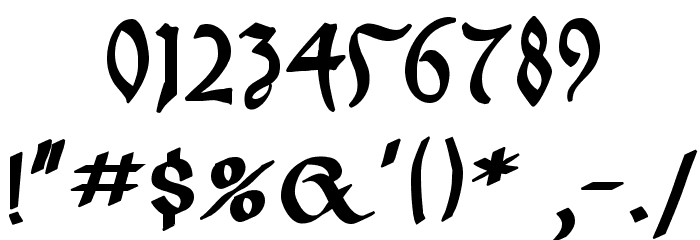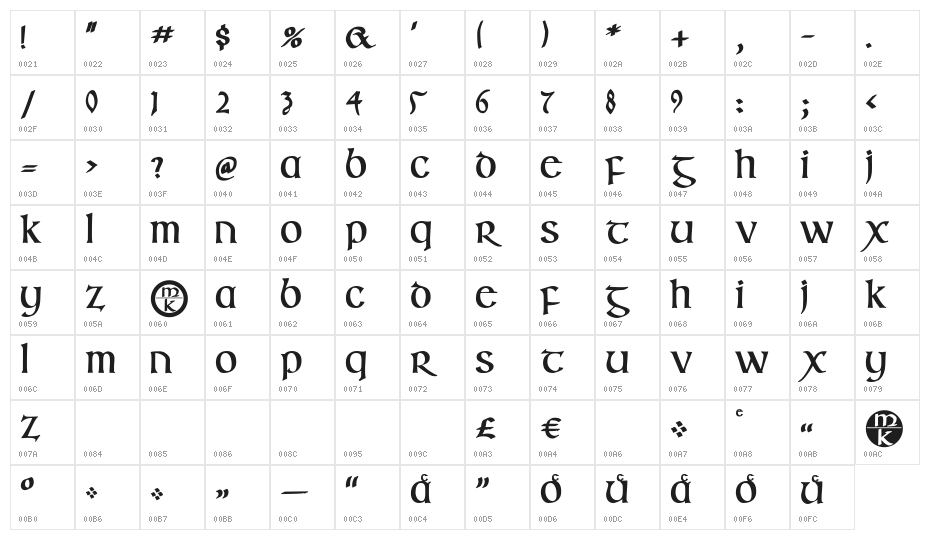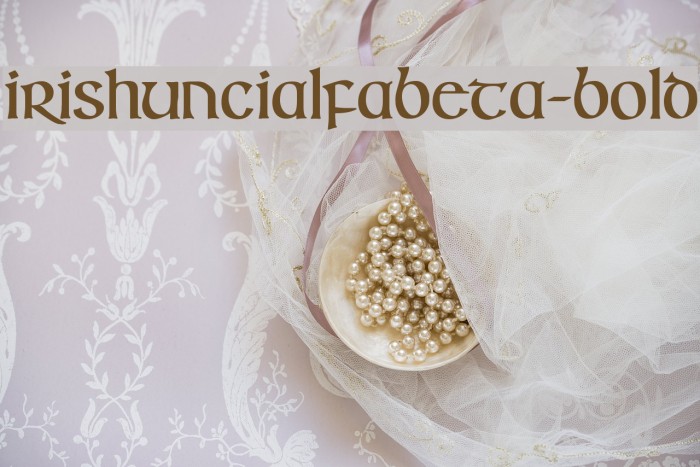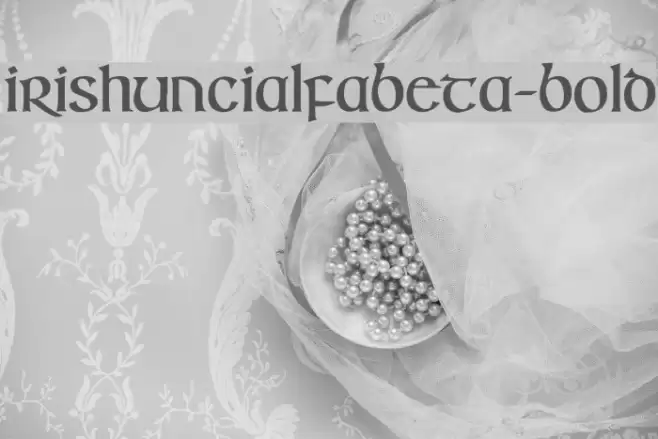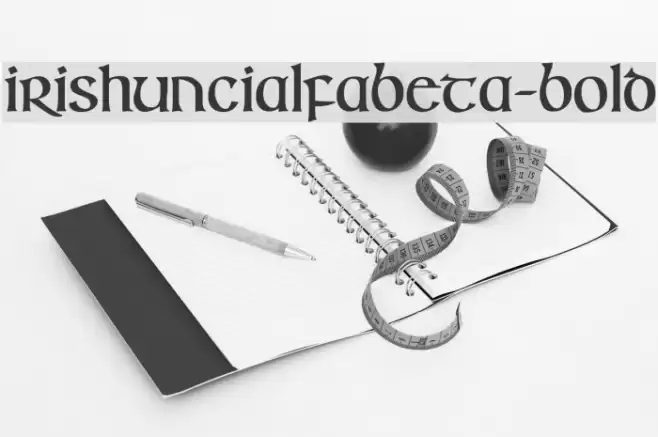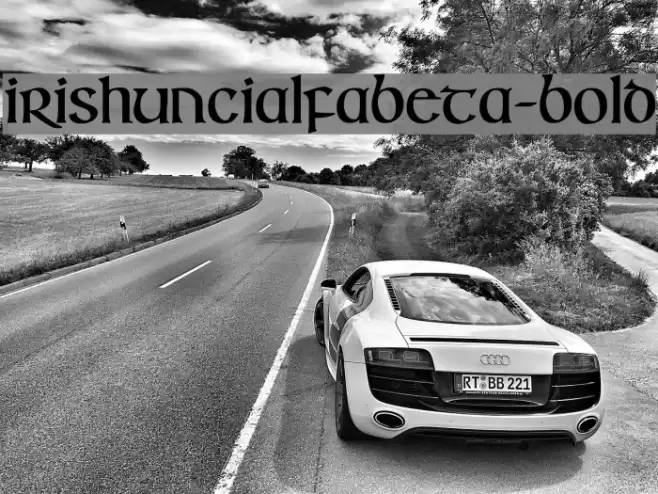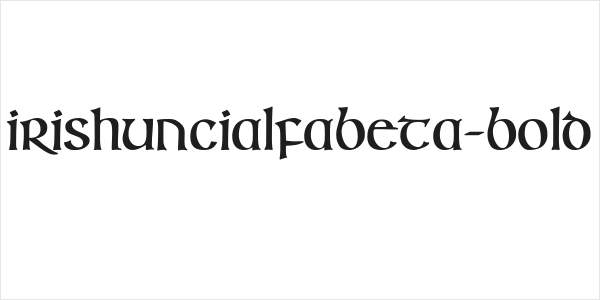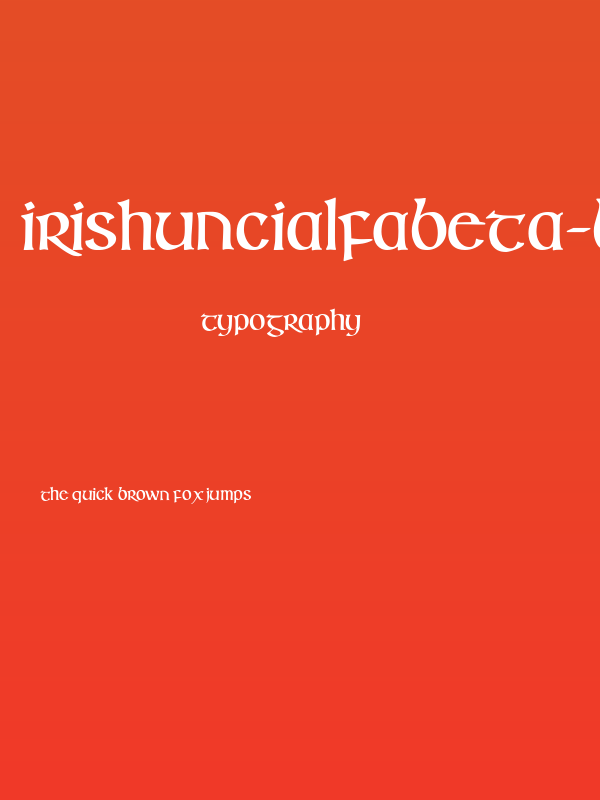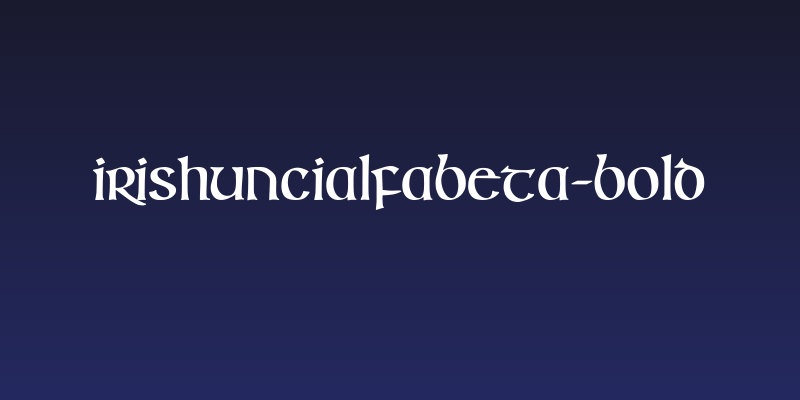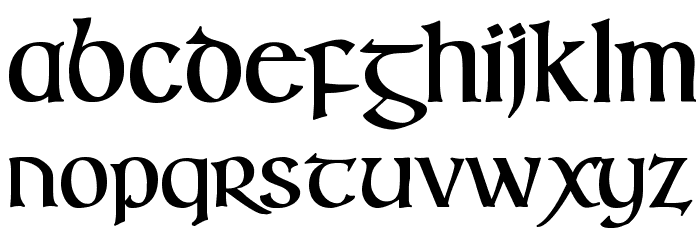
IrishUncialfabeta-Bold Font
IrishUncialfabeta-Bold Description
This font features a distinctively medieval style with influences from traditional Irish script. The characters are bold and have a calligraphic flair, with sharp angles and a flowing, organic form. The uppercase and lowercase letters maintain a consistent style, with some letters featuring unique flourishes that add to the historical aesthetic. The numbers and special characters are designed to match the overall theme, providing a cohesive look. The font's boldness and unique character shapes make it stand out, ideal for projects that require a touch of antiquity and elegance.
| Proposed Projects | Ideal for historical or fantasy-themed projects, book covers, posters, and branding that requires a vintage or medieval touch. |